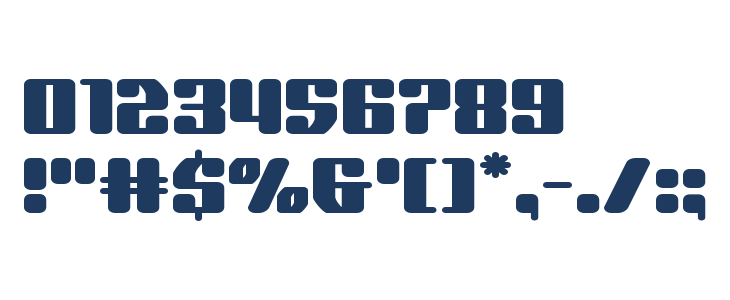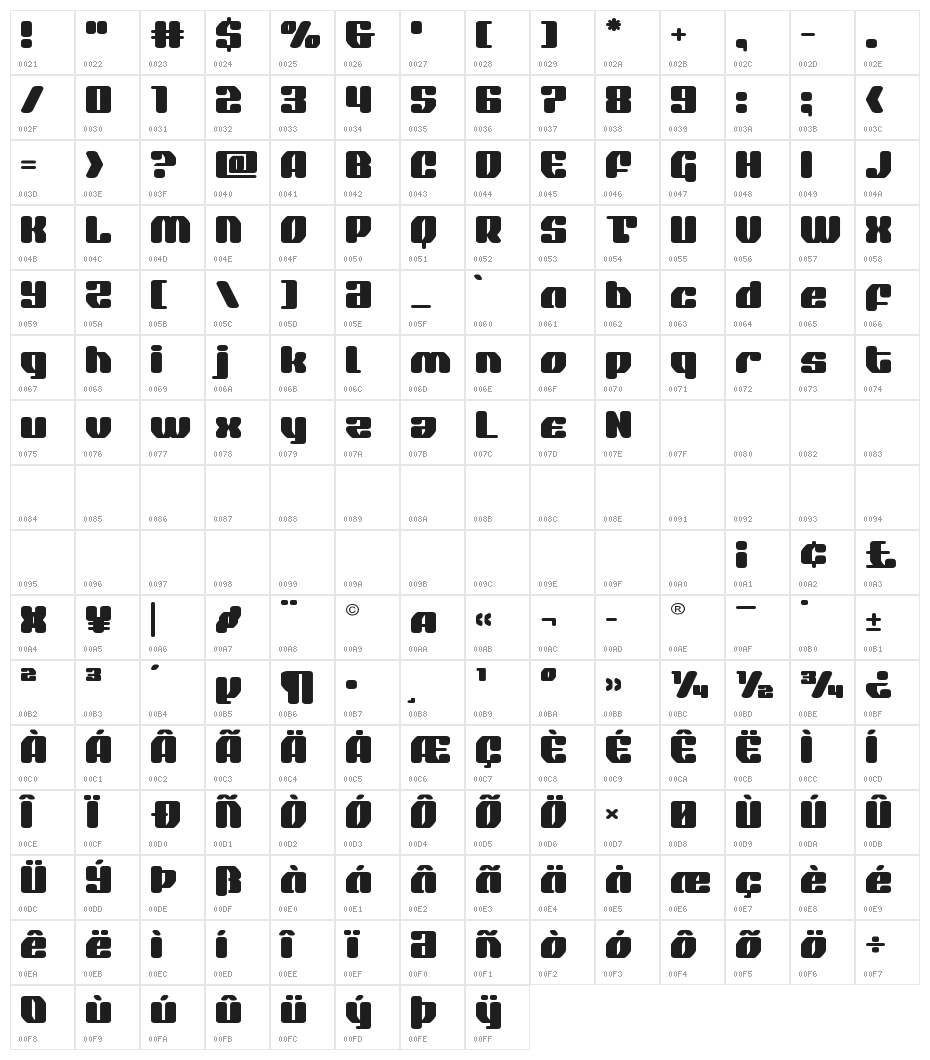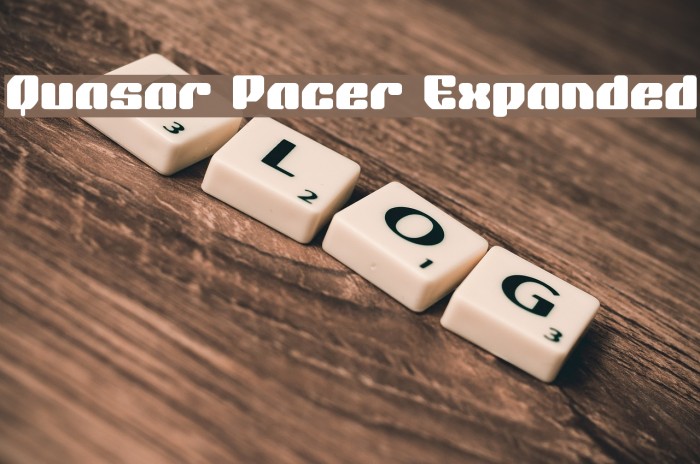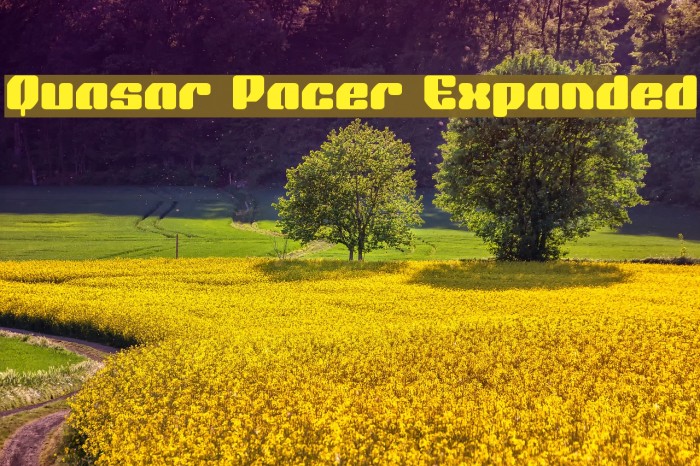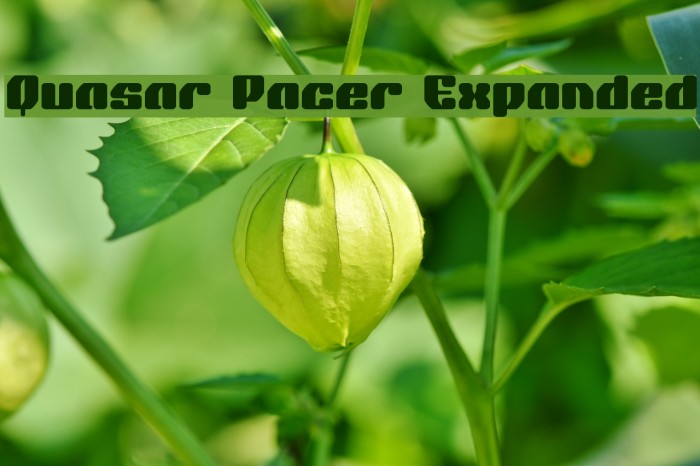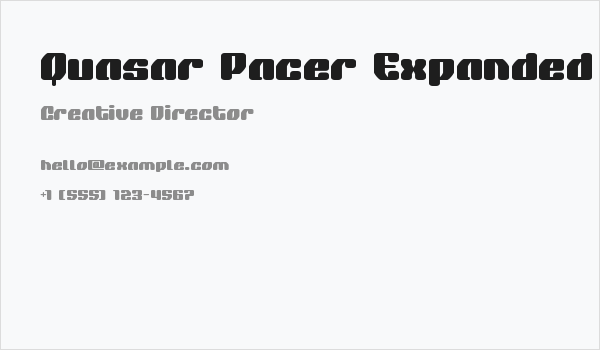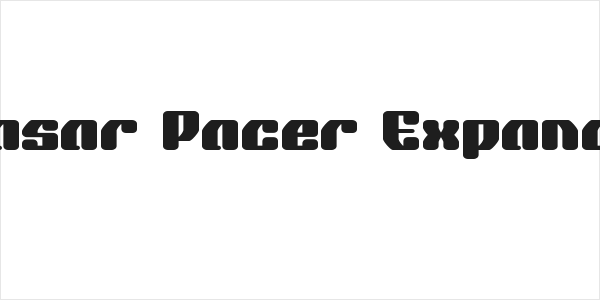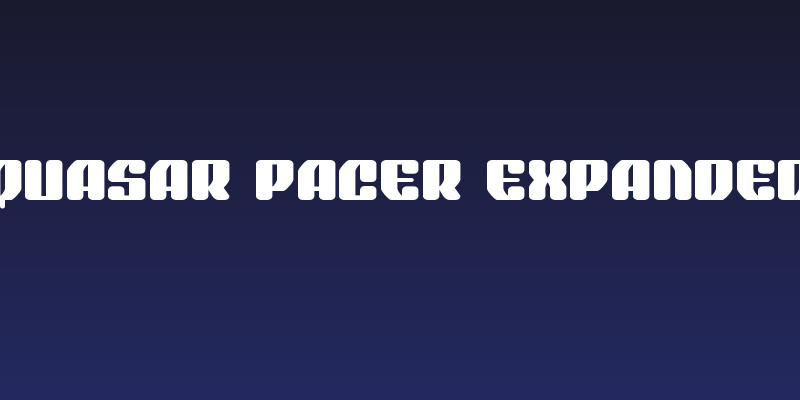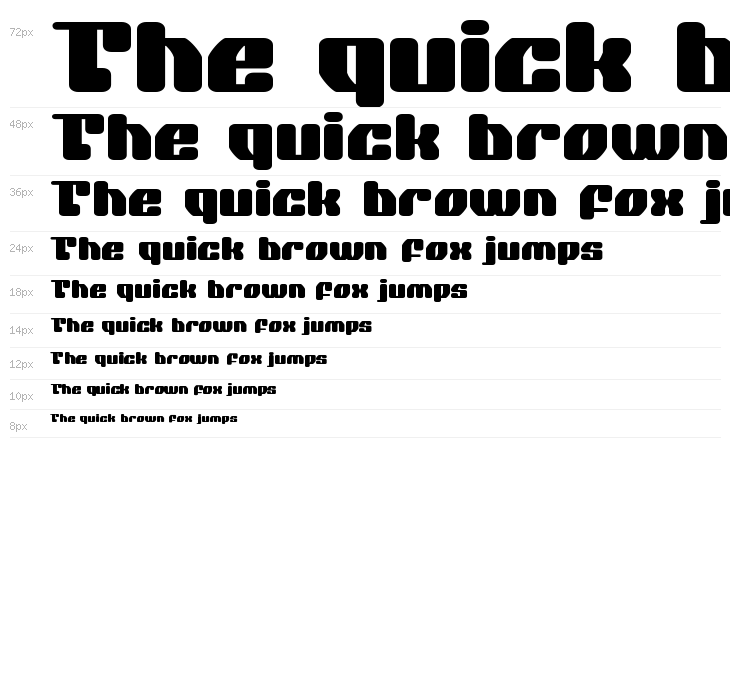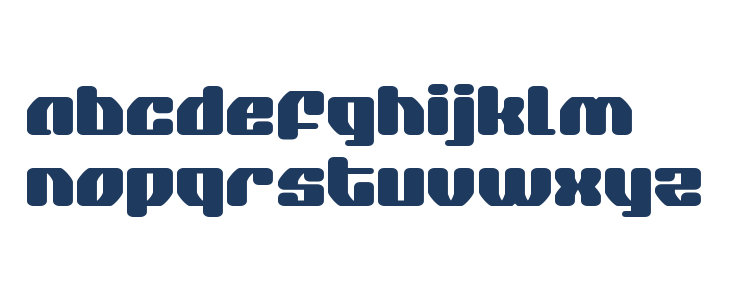
Quasar Pacer Expanded Font
Quasar Pacer Expanded Description
This font features a bold and expanded style with a distinctive geometric design. The characters are blocky and robust, with rounded edges that soften the overall appearance. The uppercase and lowercase letters maintain a consistent width, contributing to a uniform look. The numbers and special characters follow the same bold and expanded aesthetic, making them stand out prominently. This font's unique style is ideal for creating eye-catching headlines and titles. Its strong presence and modern design make it suitable for projects that require a bold statement.